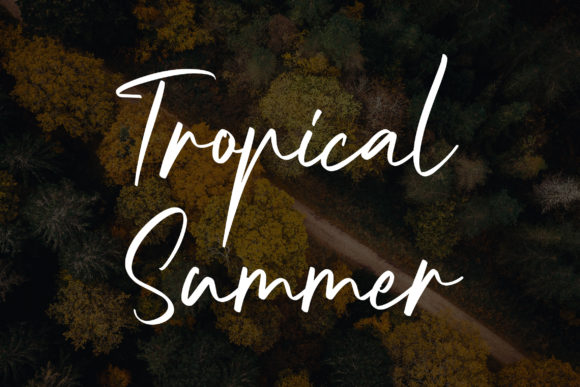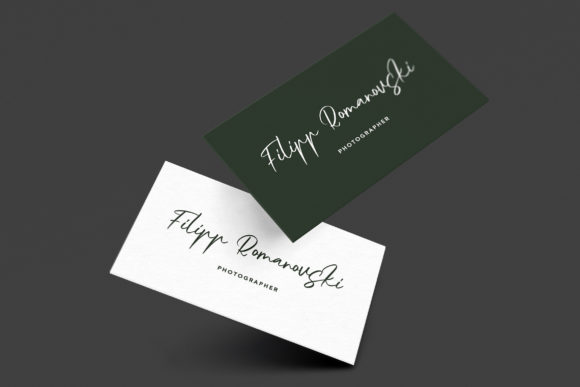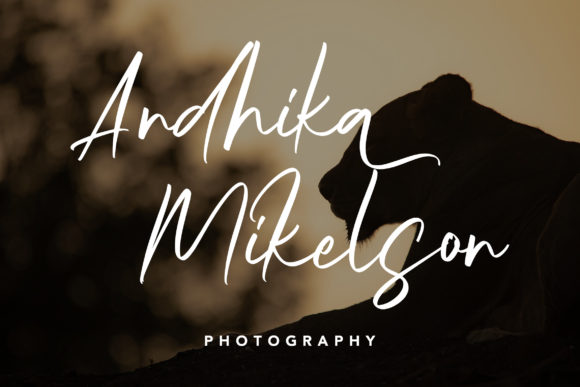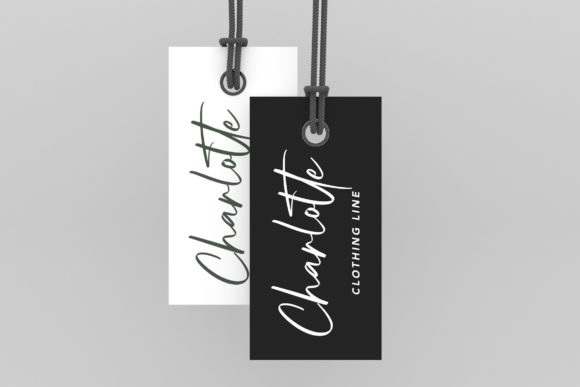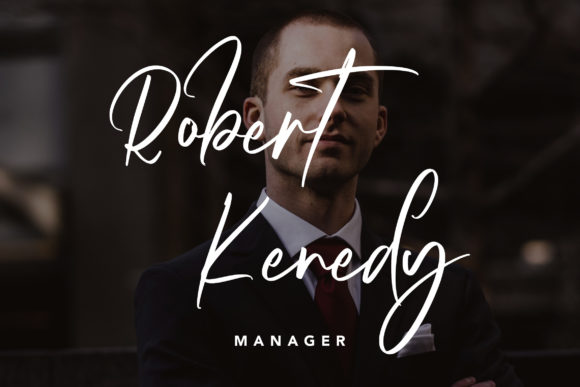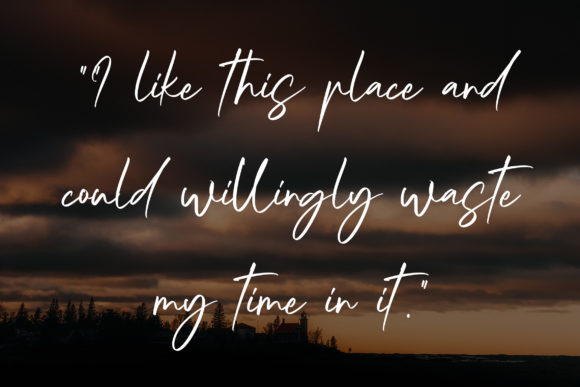
Introduction to Nightlife Font Font
Fonts play a crucial role in design, and the Nightlife Font font is a typeface that brings both character and versatility to any project. Whether you’re working on a branding project, a website, or a print design, the Nightlife Font font offers a unique style that can elevate your work.
Nightlife is a beautiful handwritten font with distinctive and natural characters.
It is perfect for branding projects, logos, wedding designs, media posts, advertisements, product packaging, product designs, labels, photography, watermarks, invitations, stationery, and any project that needs a handwritten taste .
Key Features of Nightlife Font Font
Why Choose Nightlife Font Font?
The Nightlife Font font is more than just a typeface – it’s a design tool that helps you communicate your message with style and clarity. Its unique character set and versatile design make it suitable for a wide range of applications, from elegant invitations to bold headlines.
With its carefully crafted letterforms and balanced proportions, the Nightlife Font font ensures readability and visual appeal across all mediums.
What makes Nightlife Font font special?
The Nightlife Font font stands out with its unique design, exceptional readability, and versatility across various design applications.